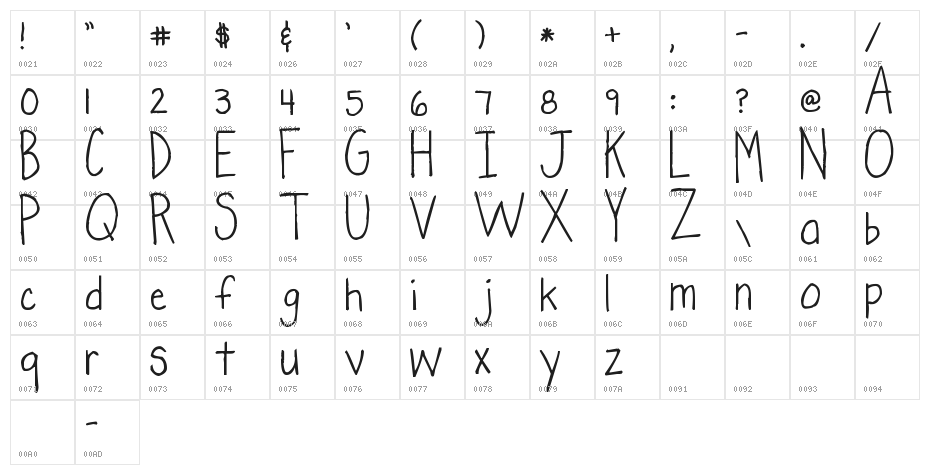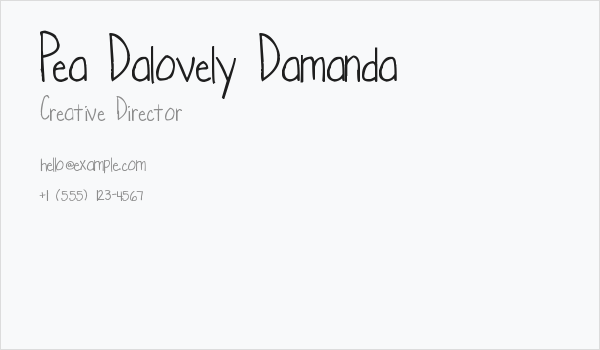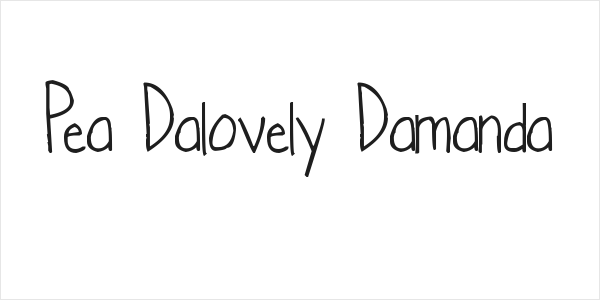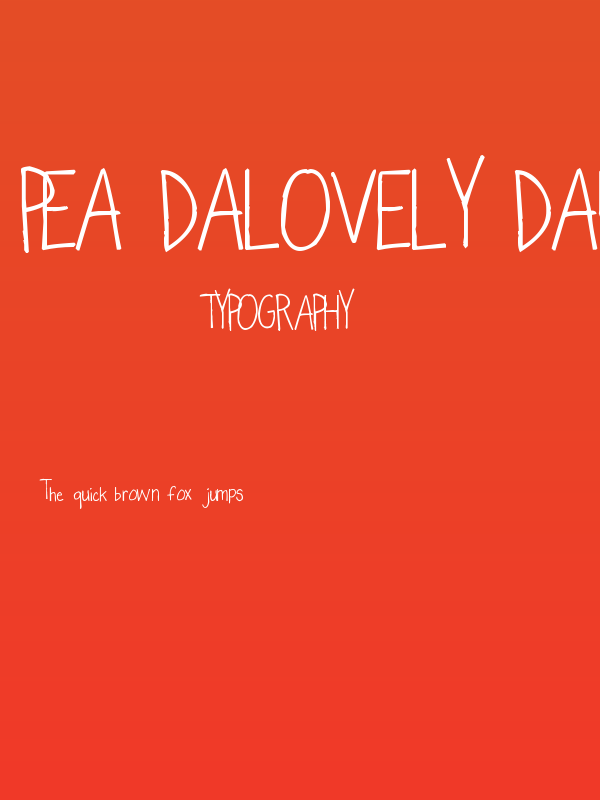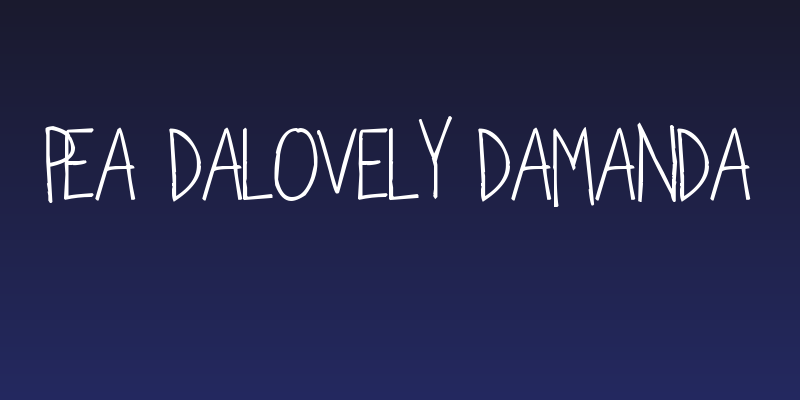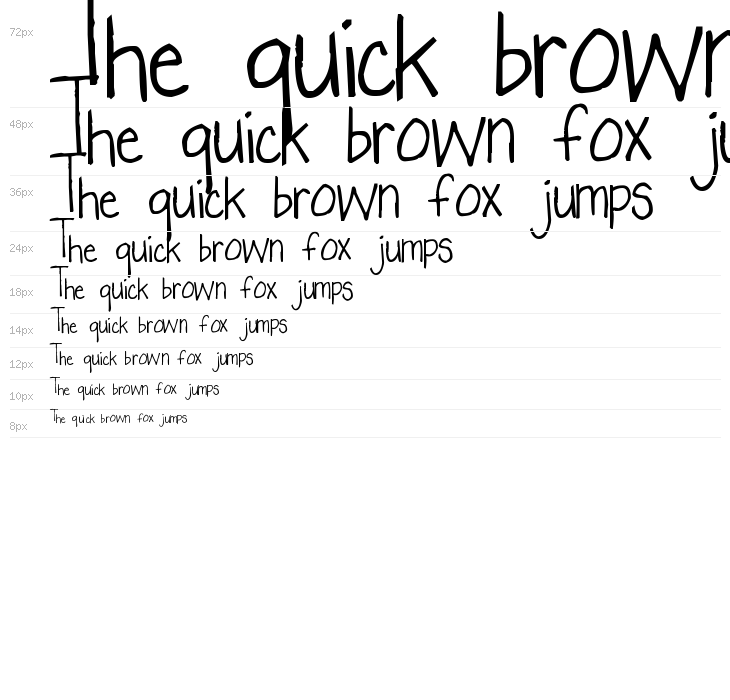
Pea Dalovely Damanda Font
Pea Dalovely Damanda Description
This font features a playful and casual handwritten style, characterized by its irregular strokes and whimsical appearance. The letters have a slightly uneven baseline, adding to the informal and friendly feel. The uppercase letters are tall and narrow, while the lowercase letters are more rounded and open. The numerals and special characters maintain the same playful aesthetic, making the font versatile for creative projects. The overall look is approachable and lively, suitable for designs that aim to convey a personal touch.
| Use Case | Headlines, Logos, Informal text |
| Proposed Projects | Ideal for greeting cards, children's books, personal blogs, and informal invitations. |